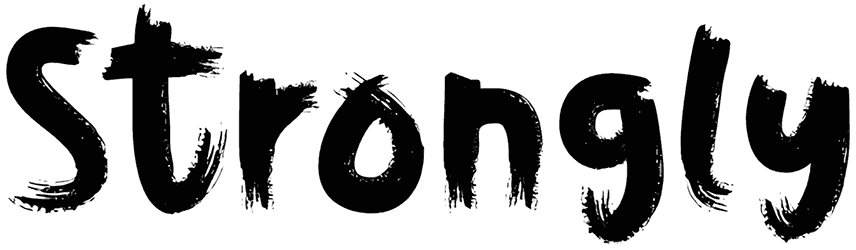
Crushed Stone Font
Come and see what we brought you! Here is the Crushed Stone brush font created by the play of a brush or ink on paper. This font is used for informal materials such as posters, logos, flyers, quotes, apparel packaging, and so on. It can add an artistic touch to your writing. Don’t neglect this font when you want to create a natural and organic sense. Enjoy!